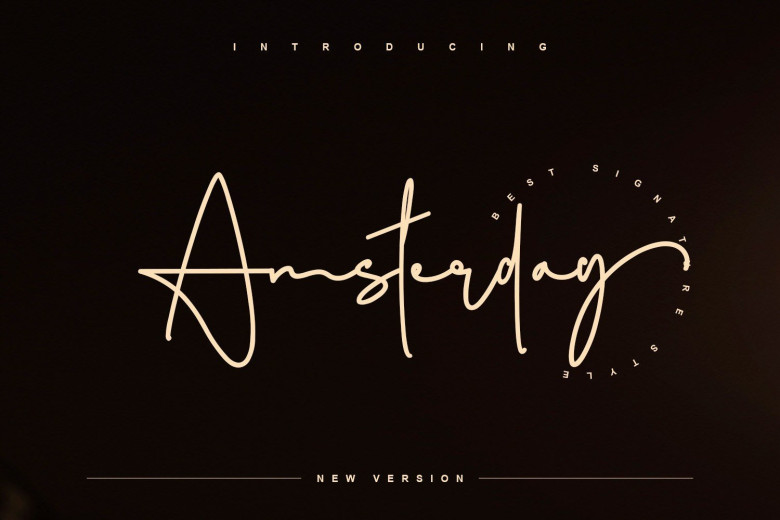
Amsterday Signature Script Font
Amsterday is a beautiful signature script font. This font has been carefully designed to recreate natural handwritten text and it features cute swashes. It will elevate a wide range of design projects to the highest level, be it branding, headings, wedding designs, invitations, signatures, logos, labels, and much more!
Amsterday: is perfect for branding projects, logo, wedding designs, social media posts, advertisements, product packaging, product designs, label, photography, watermark, invitation, stationery, and any projects that need handwriting taste.